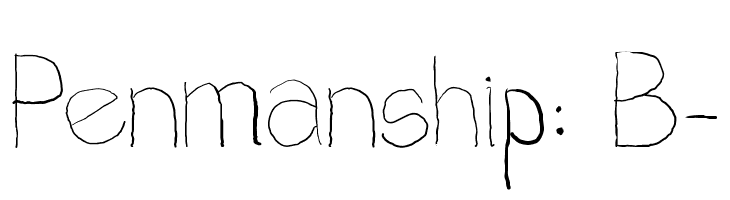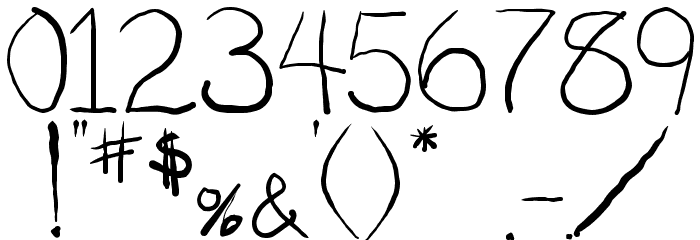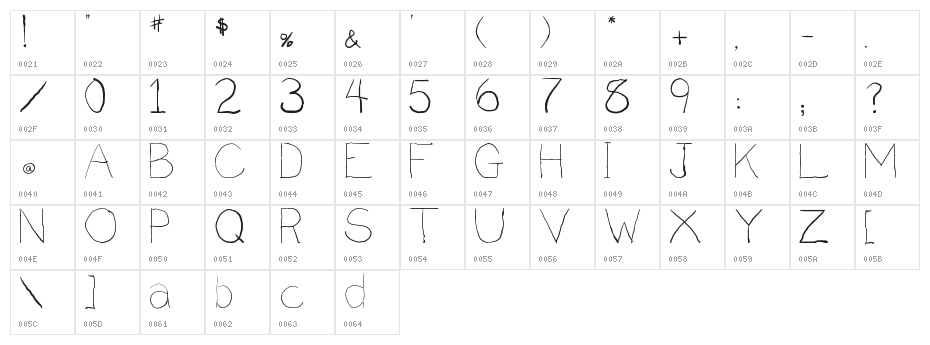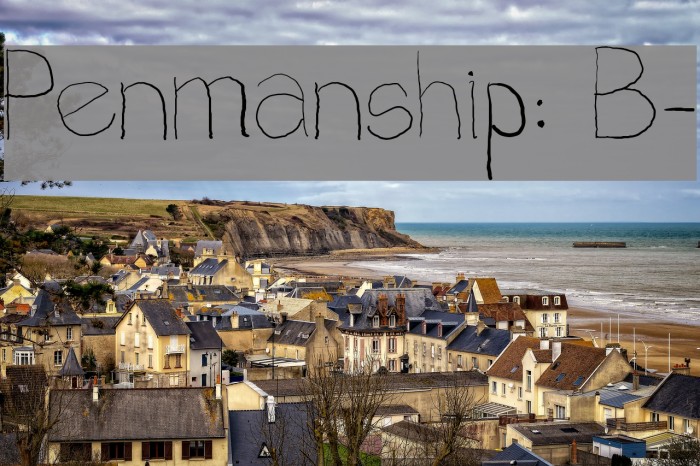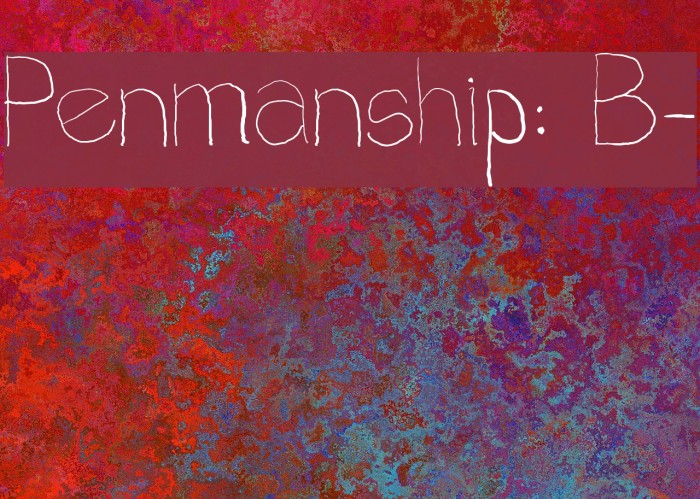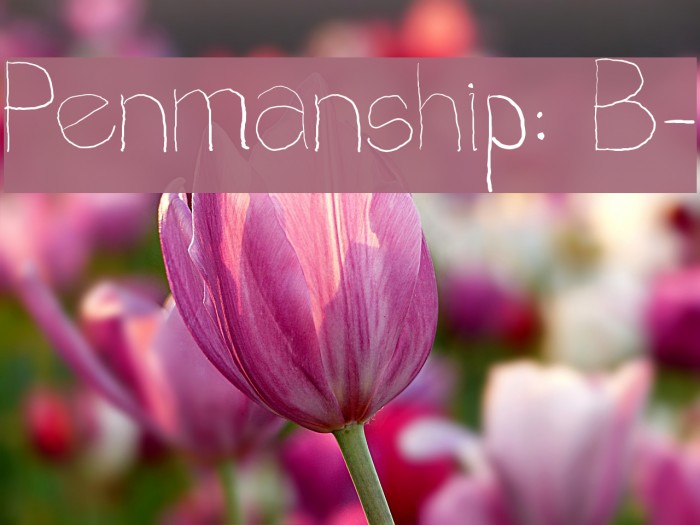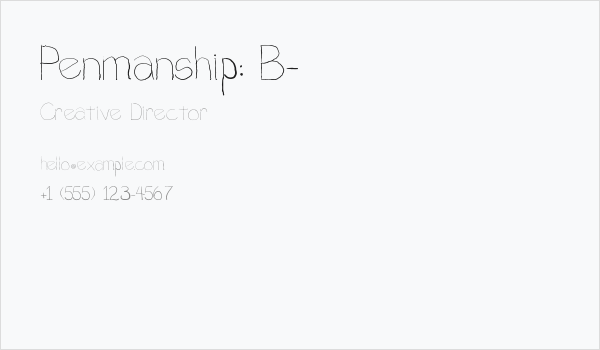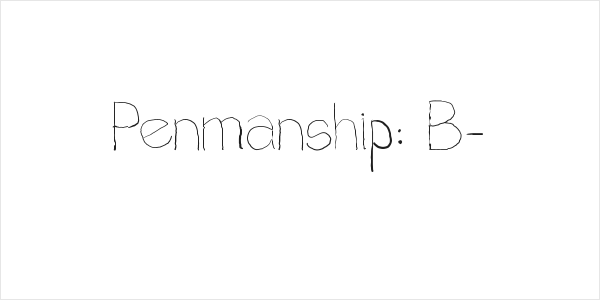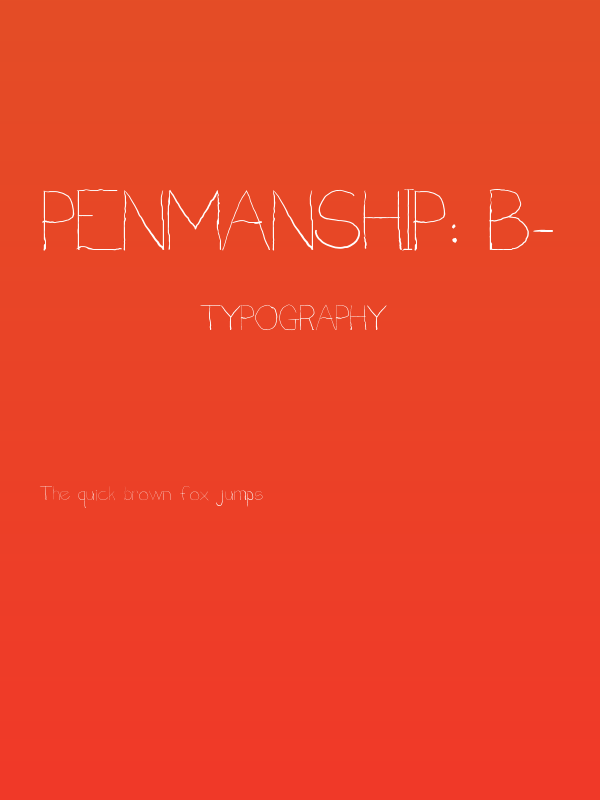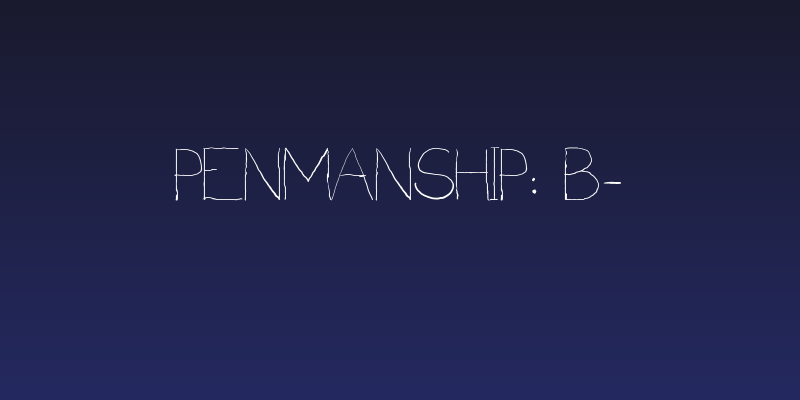
Penmanship: B- Font
Penmanship: B- Description
This font exhibits a unique, handwritten style that mimics the fluidity and irregularities of natural penmanship. The characters are slightly uneven, with varying stroke thicknesses that give it an organic and personal feel. The uppercase letters are tall and slender, while the lowercase letters maintain a consistent flow, enhancing the handwritten aesthetic. Numbers and special characters follow the same style, contributing to a cohesive look. This font's charm lies in its imperfections, making it ideal for projects that require a personal touch.
| Proposed Projects | Ideal for greeting cards, personal letters, invitations, and creative projects that require a handwritten feel. |